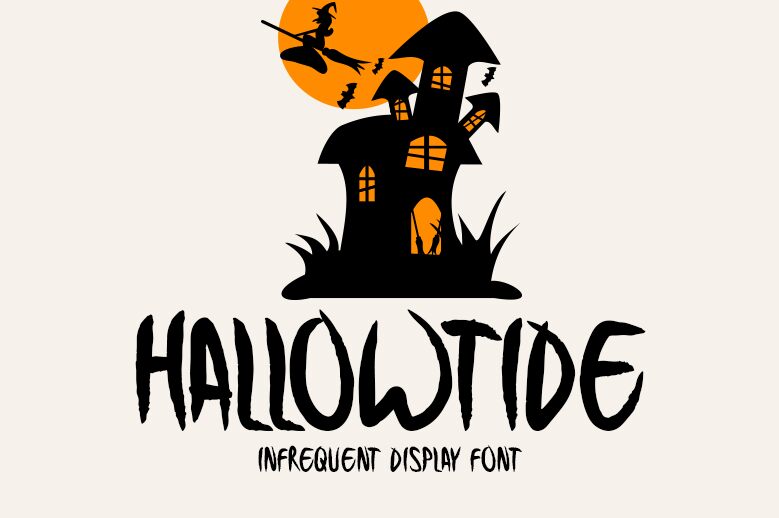
Hallowtide font family, created by Md Shohail Bhuian, is a free font with a quirky and novel design. The letters look bumpy, crooked, and sometimes stacked on one other. If the Munster theme, Scooby-Doo cartoons, and Halloween movies have thrilled you, this typeface will be no exception. The Hallowtide has succeeded in bringing to life a truly spooky typeface that will be extremely useful for all kinds of Halloween-themed projects.
The font family has two variations that look similar but make a huge visual difference when paired together. Their distorted design is meant to have only one central purpose that we all know; scaring people. They can be relevant for both children’s illustrations and printable crafts as well as bold banners calling teenagers for yet another spooky ghost night.